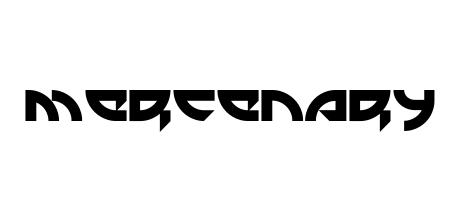
Mercenary
Mercenary is a bold, geometric sans-serif typeface. Its strong, blocky letters feature sharp angles and distinct cuts, creating a feeling of power and aggression. Each character is uniquely designed, showcasing a consistent yet dynamic style. The overall aesthetic suggests a futuristic or sci-fi vibe.